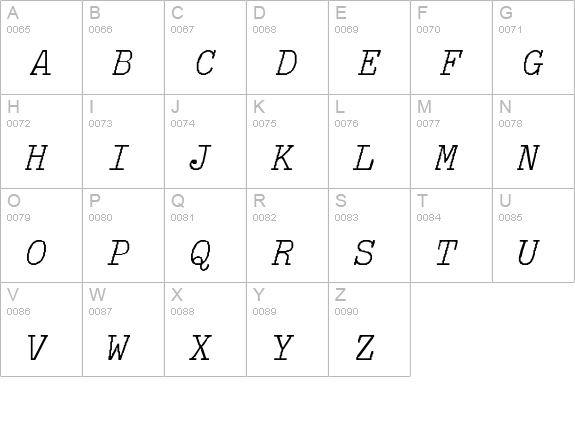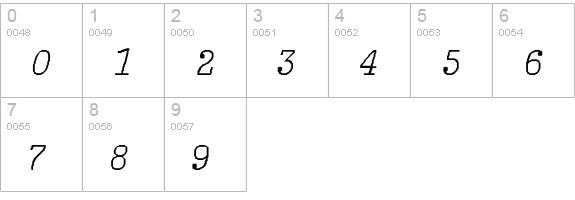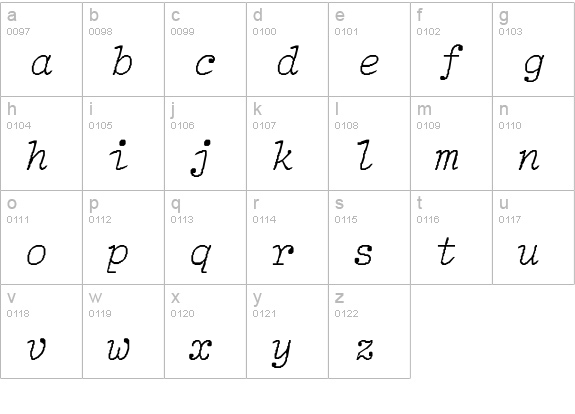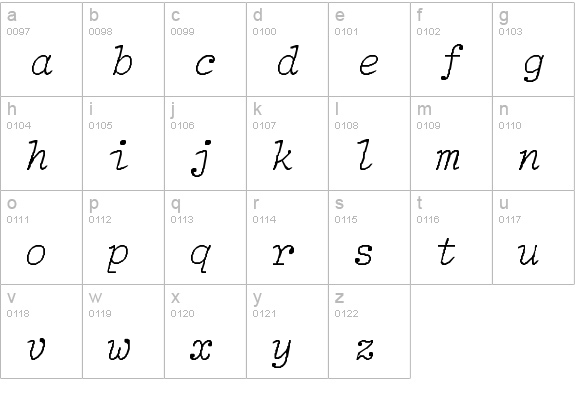
LightItalic-Lig Font Details
LightItalic-Lig is a beautiful and elegant font with a delicate touch of sophistication. Its light and airy appearance exudes a sense of grace and refinement, making it perfect for projects that require a touch of finesse. The italic style adds a touch of flair and modernity to the overall design, making it versatile for a wide range of applications. What sets LightItalic-Lig apart is not only its stunning aesthetics but also the fact that it is available for free download at FontsMarket.com. This means that you can easily access and use this exquisite font in your projects without any cost, making it a valuable resource for designers, creatives, and anyone looking to elevate their work with a touch of elegance. Don't miss out on the opportunity to enhance your designs with LightItalic-Lig - download it for free today!